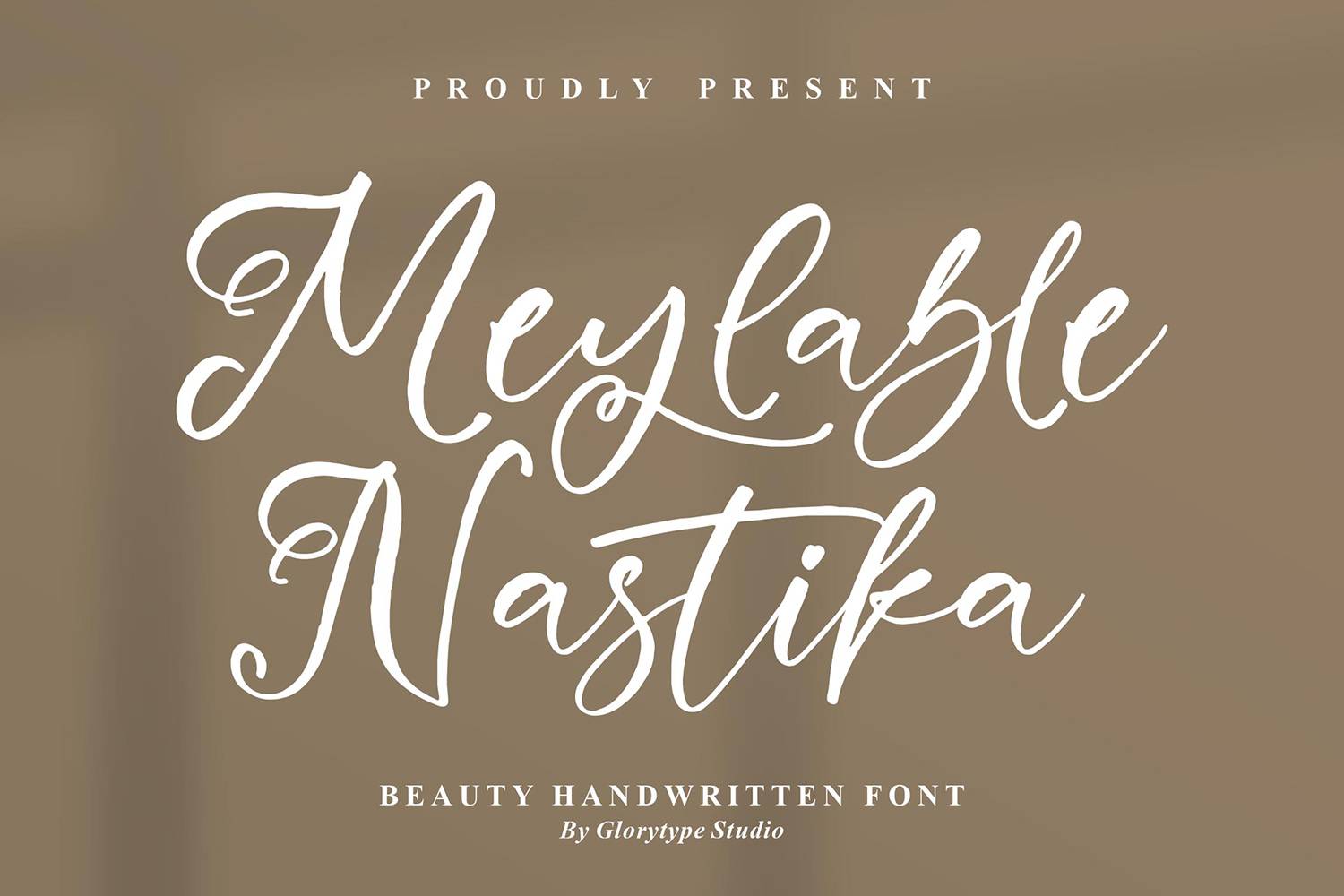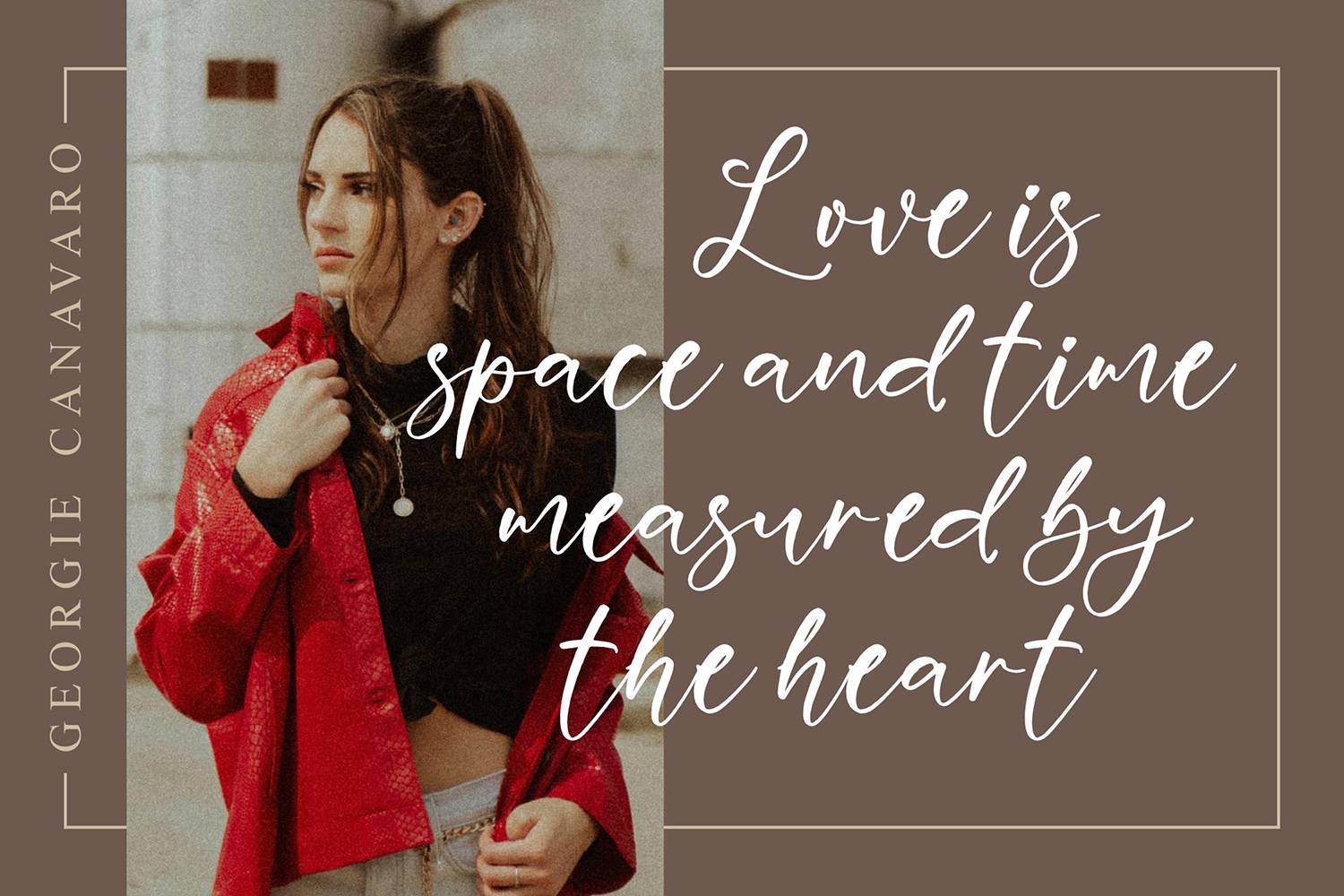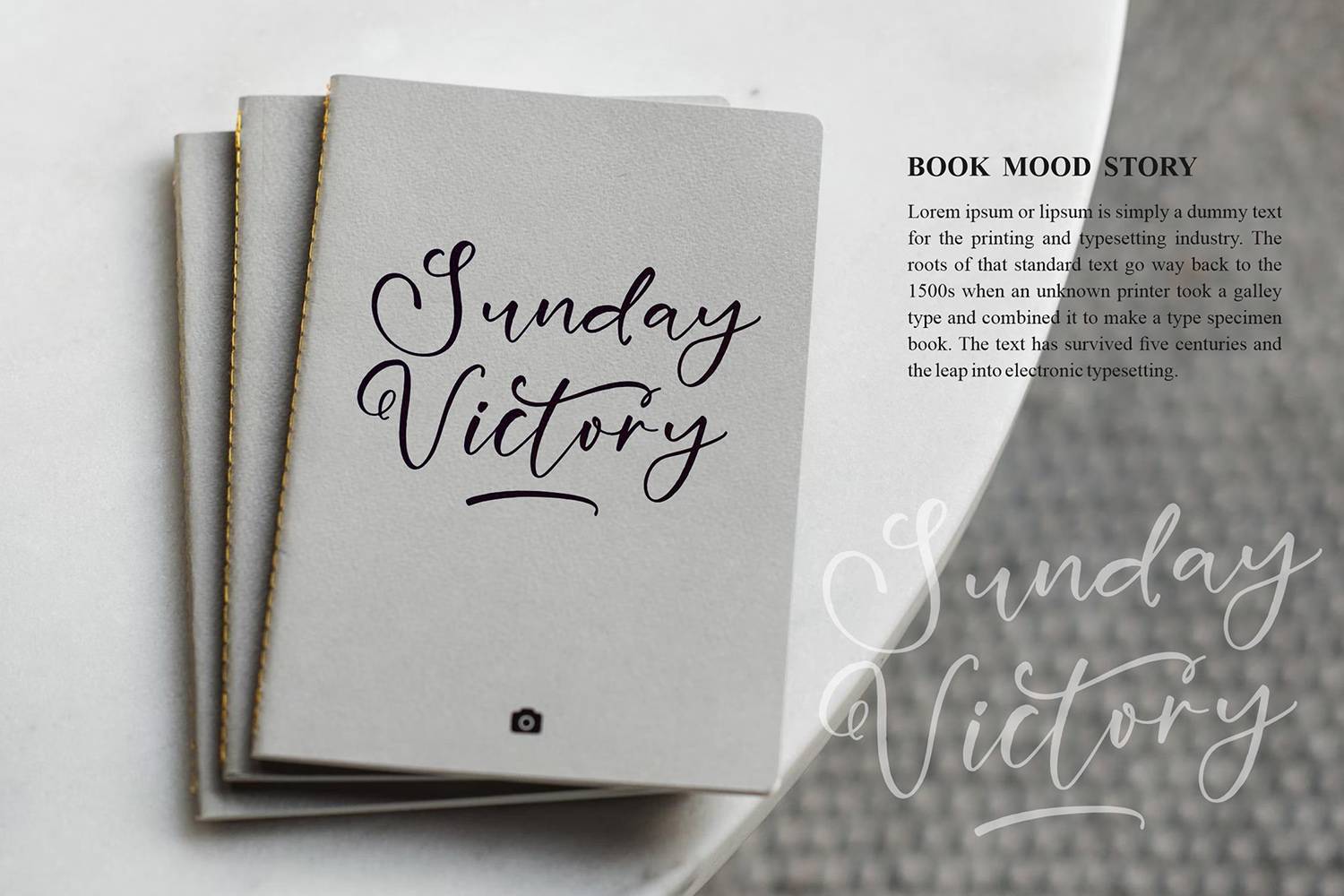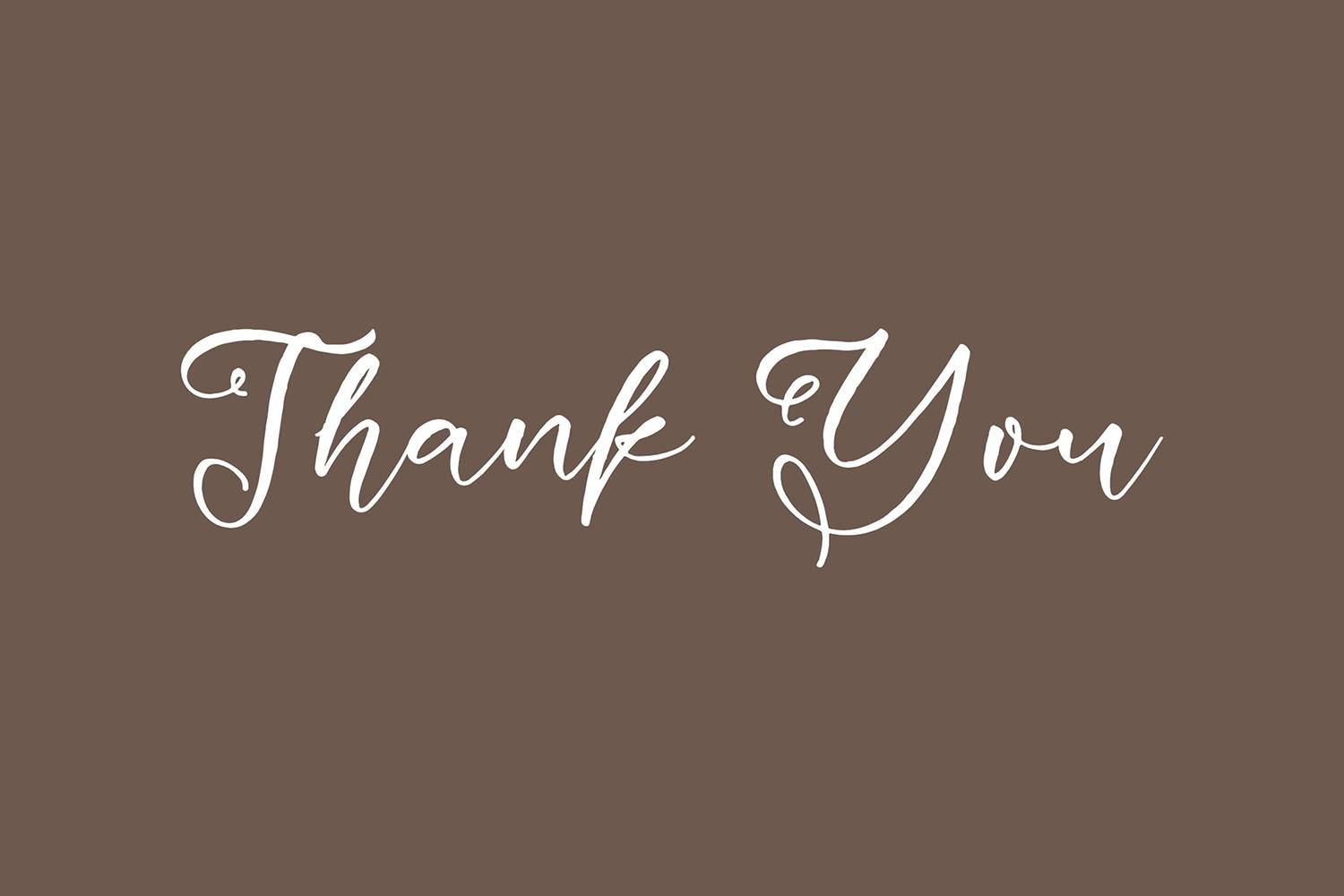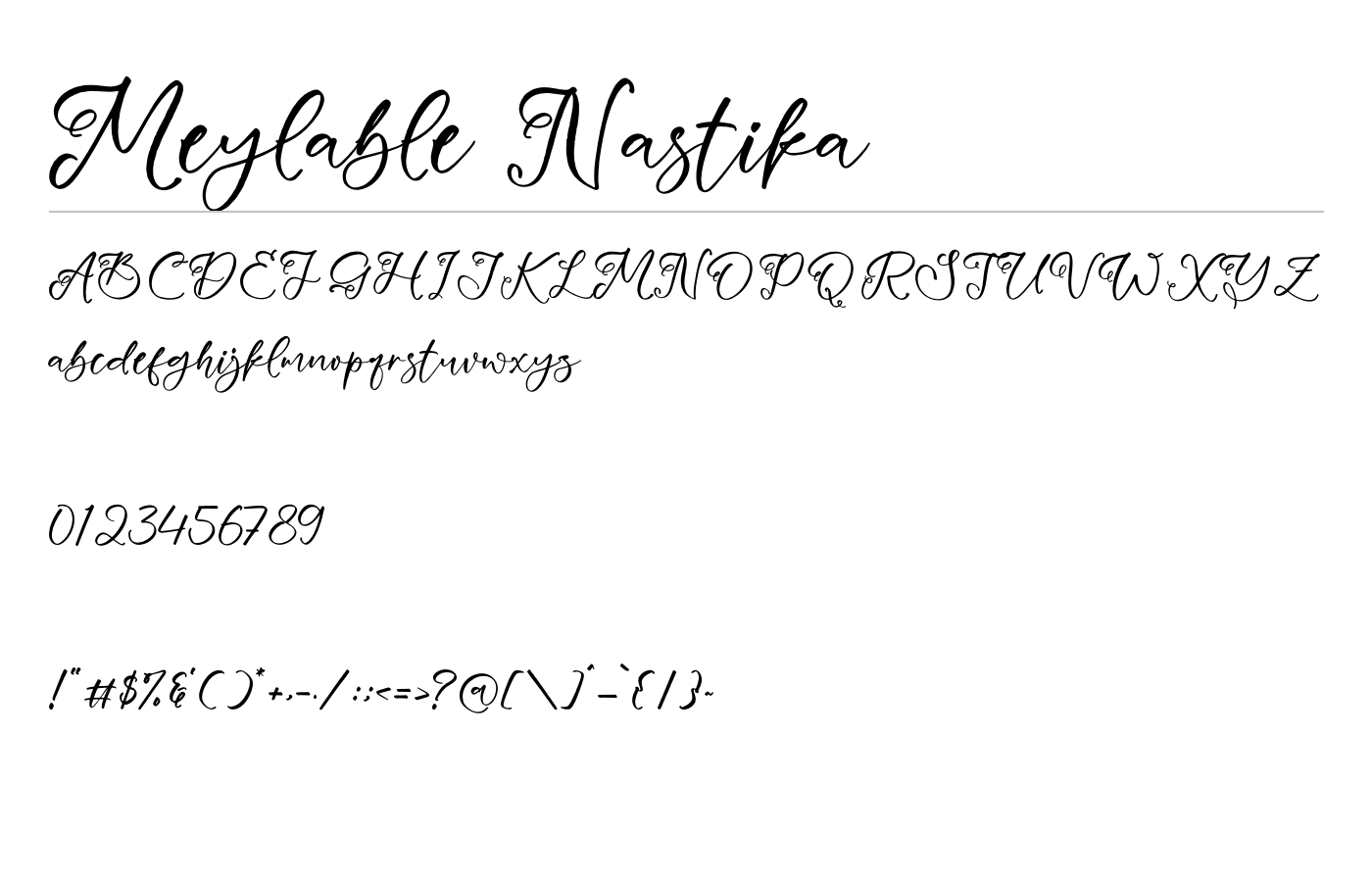
Meylable Nastika is an elegant script font with delicate, flowing letterforms that evoke a refined and artistic feel. Its slender strokes and graceful curves make it ideal for sophisticated branding, invitations, and decorative headlines where a touch of personalization and charm is desired. This font works best in contexts that appreciate a handcrafted, stylish appearance without sacrificing readability.
Meylable Nastika Font
About Meylable Nastika Font